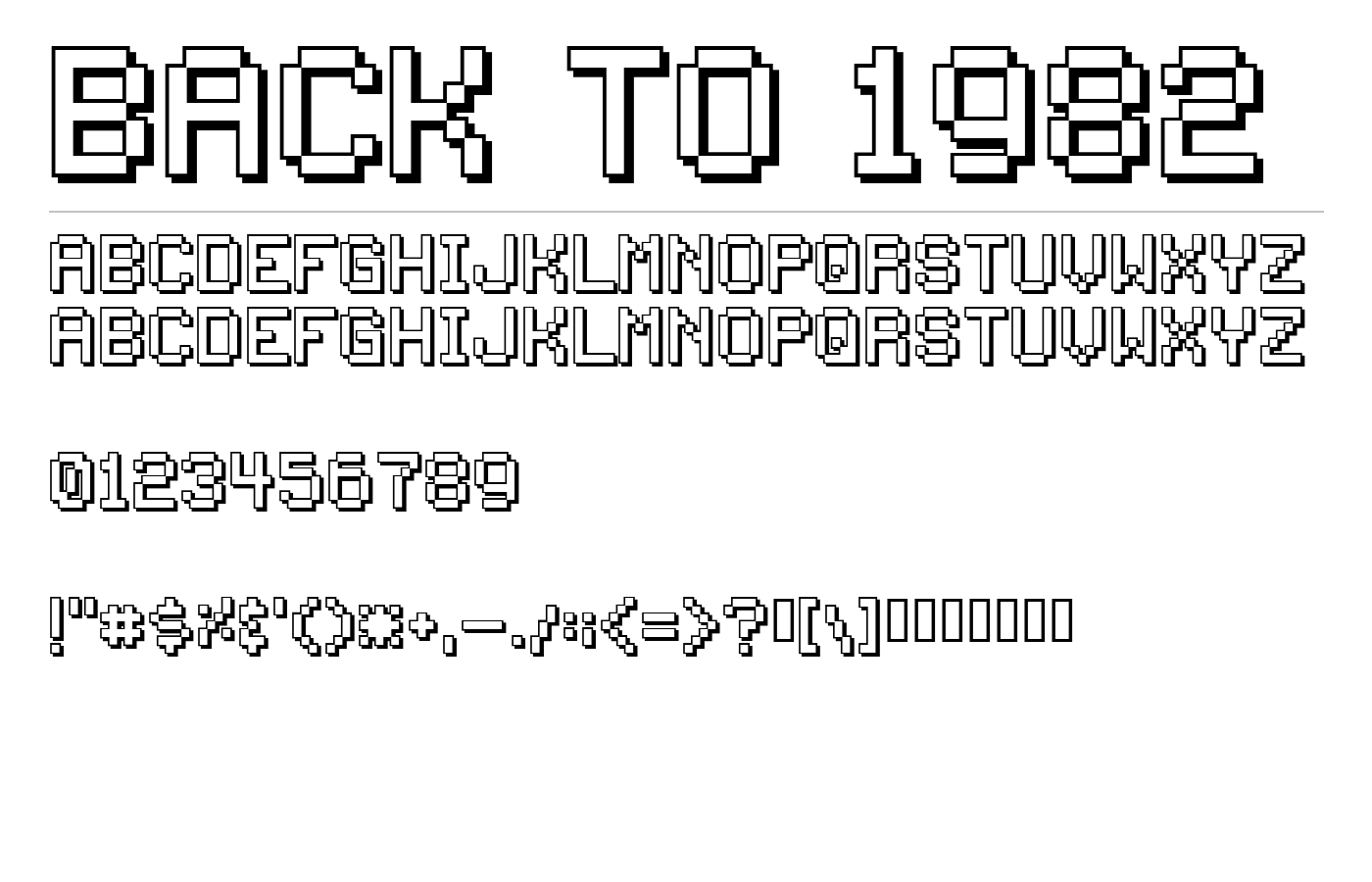
Back to 1982 is a pixelated, retro-inspired sans serif font that captures the nostalgic feel of early 1980s computer and arcade game typography. With its bold, blocky letterforms and sharp, geometric edges, this typeface exhibits a strong, playful character perfect for vintage gaming, tech-inspired designs, and digital-themed projects. Its clear, monospaced style makes it especially suitable for logos, posters, and headlines that seek a bold, nostalgic vibe.
Back to 1982 Font